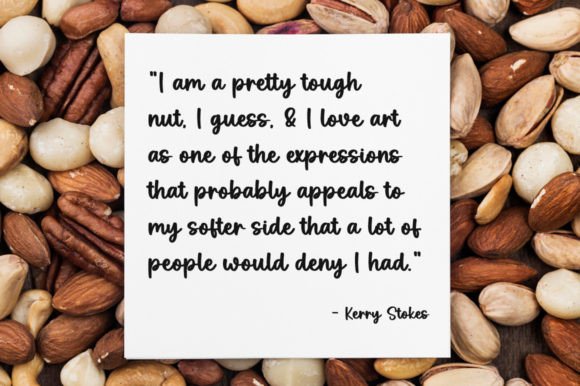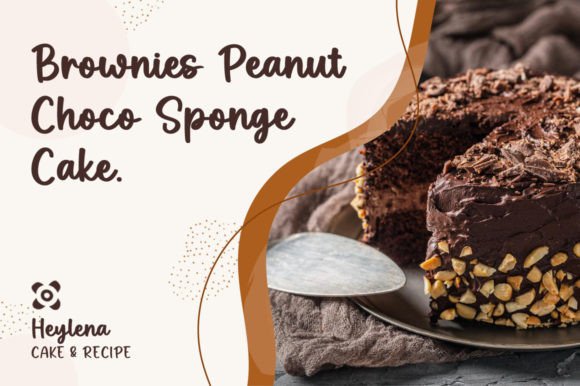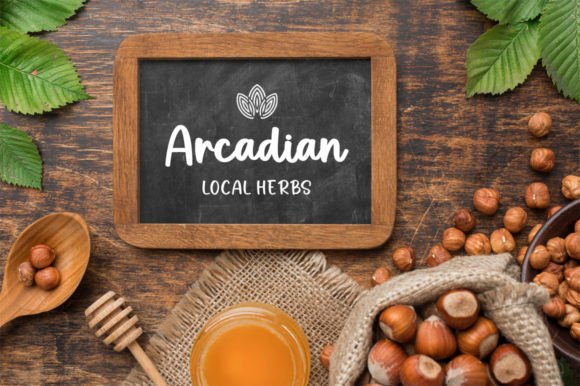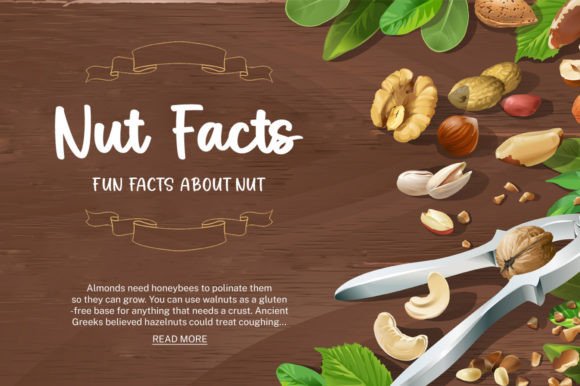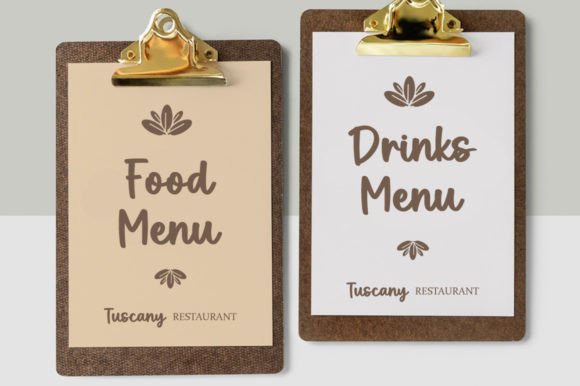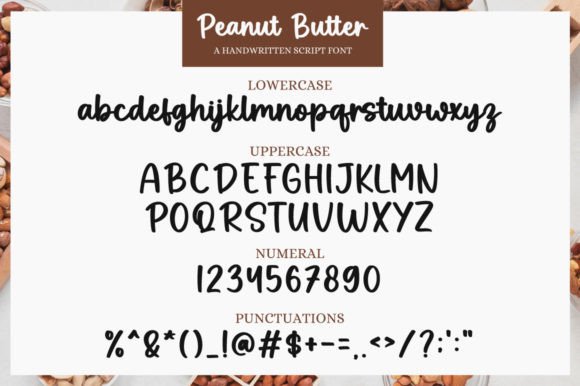
Introduction to Peanut Butter Font
Have you ever found yourself in the midst of a creative project, desperately searching for the perfect font to elevate your design? I’m sure you’ve been there – staring at a blank page, envisioning the perfect aesthetic, but struggling to find the right words to bring it to life. This is exactly where the Peanut Butter Font comes in – a game-changing design resource that will take your creative projects to the next level.
With its delicate, elegant, and flowing handwritten style, the Peanut Butter Font is an absolute gem. Its beautiful and well-balanced characters make it a versatile choice that can complement a wide range of designs, from elegant invitations to modern logos.
Key Features of Peanut Butter Font
- High-quality design resource ideal for creative projects, offering a unique and modern aesthetic.
- Features a clean and minimalist design, with a clear and legible font style, making it suitable for a wide range of creative projects.
Honest Review: Peanut Butter Font
I recently stumbled upon the Peanut Butter Font, a free design resource that has been gaining popularity among creatives. As a designer, I was excited to try it out for my current project.
What works well: ✨ The font is highly legible, making it perfect for body text. The Peanut Butter Font comes in a range of weights, from light to bold, giving users ample flexibility for their creative project. The font also features a transparent background, which is a nice touch.
Limitations: ⚠️ While the Peanut Butter Font is free, it’s not without its limitations. The font doesn’t support a wide range of languages, which might be a drawback for designers working on international projects. Additionally, the font’s scalability could be improved for smaller text sizes.
Overall impression: I’d say the Peanut Butter Font is a great addition to any designer’s toolkit. Its high quality and versatility make it a solid choice for a variety of creative projects. While it may have some limitations, it’s a free download that’s definitely worth checking out.
- Legible and versatile
- Supports a range of languages (although not all)
- Transparency background
Some common use cases for the Peanut Butter Font include branding, logos, and advertisements.
Alternatives to Peanut Butter Font
Pacifico is a beautiful script font perfect for creative projects that require a touch of elegance. It’s ideal for wedding invitations, menus, and other high-end design resources. This font features a high quality, elegant script that’s great for adding a personal touch to your design.
Compared to Peanut Butter Font, Pacifico has a more refined and sophisticated look, making it suitable for more formal and professional designs. While Peanut Butter Font has a more casual and playful feel, Pacifico is perfect for those who want to add a touch of sophistication to their creative project.